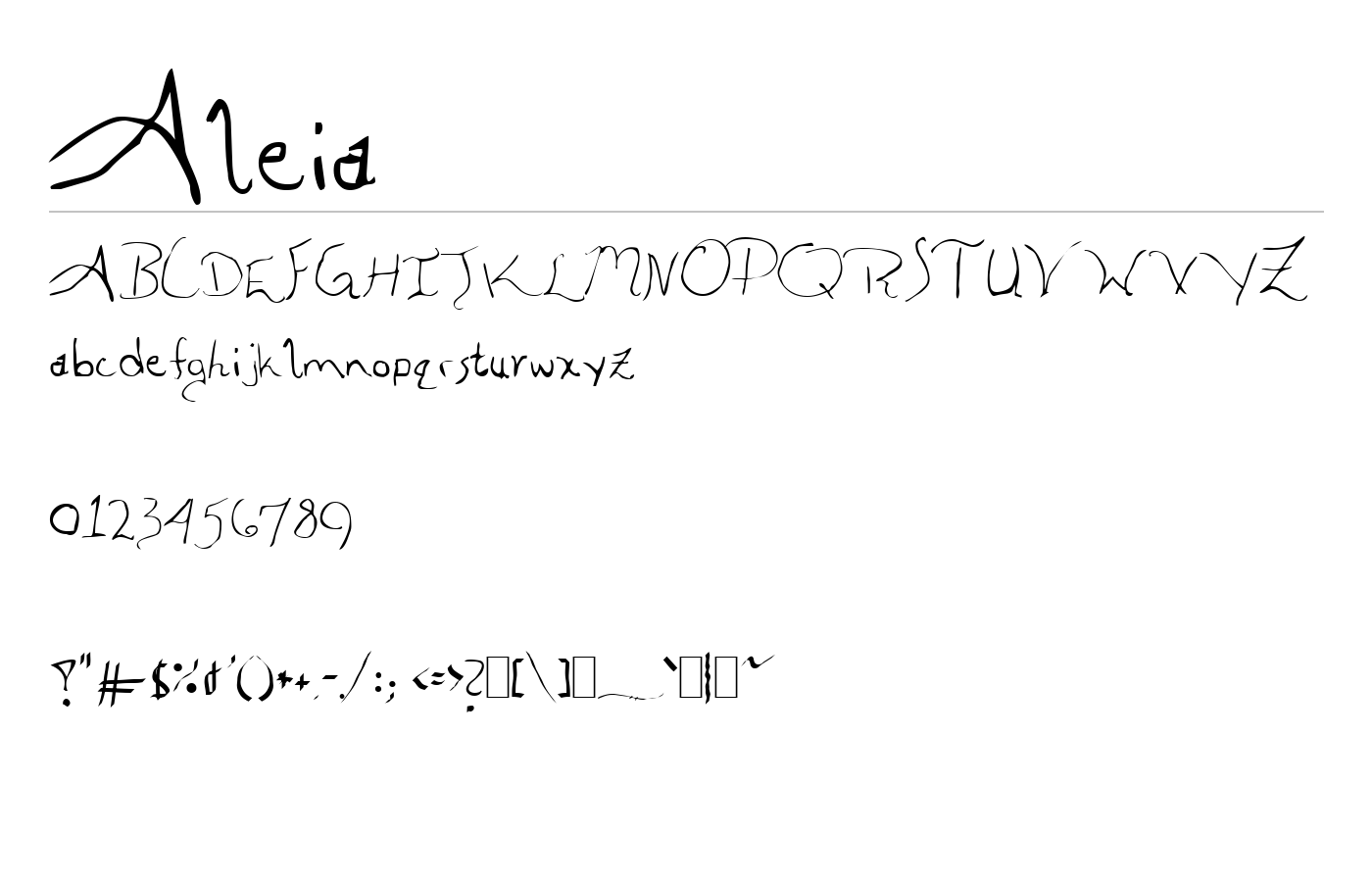
Aleia is a delicate, handwritten-style font with a whimsical and artistic flair, characterized by its thin, flowing strokes and unique, irregular letterforms. Its light weight and airy appearance make it ideal for creative projects, invitations, or branding that seeks a personal, expressive touch. This font works best in decorative or headline uses where a charming, handcrafted feel is desired.
Aleia Font
About Aleia Font